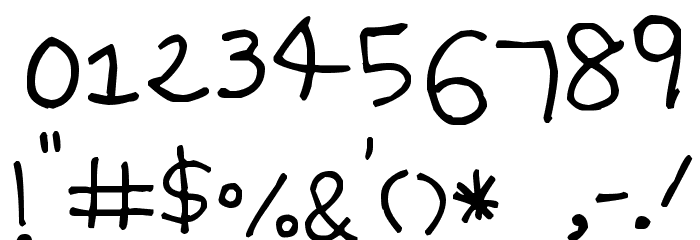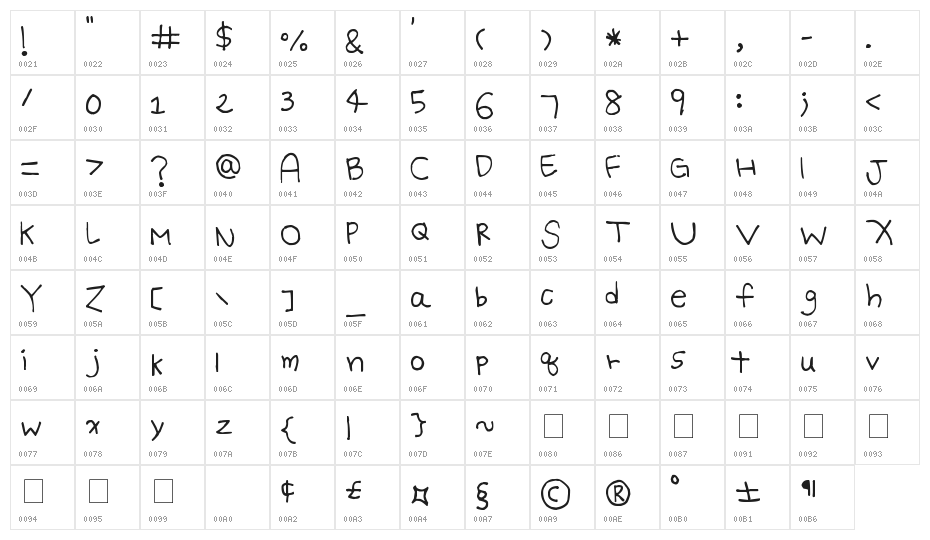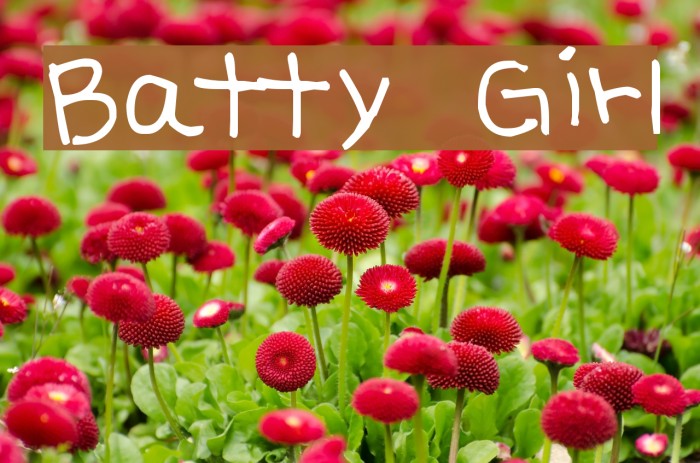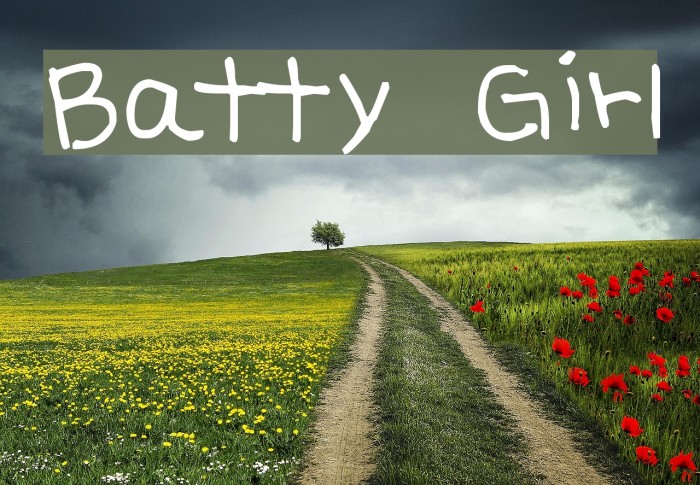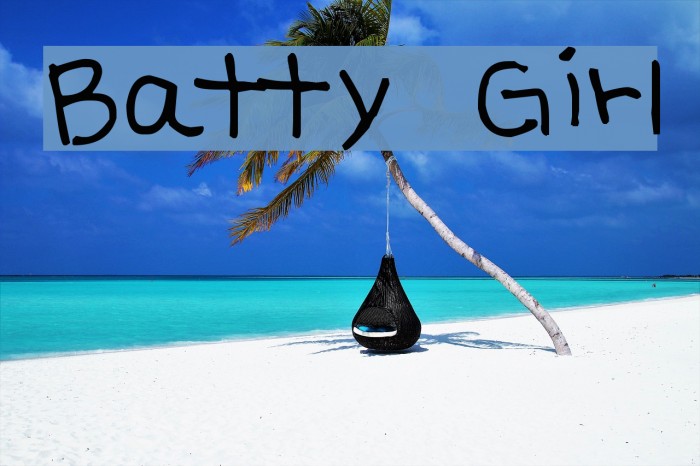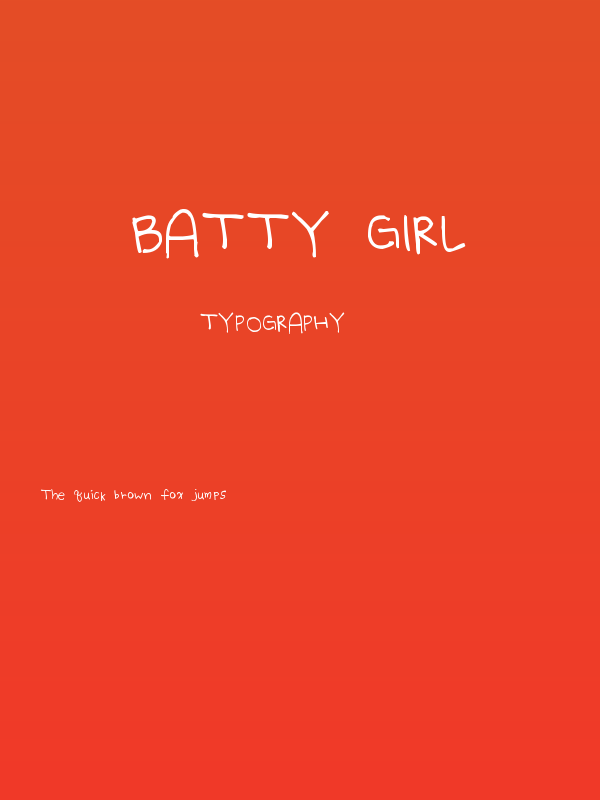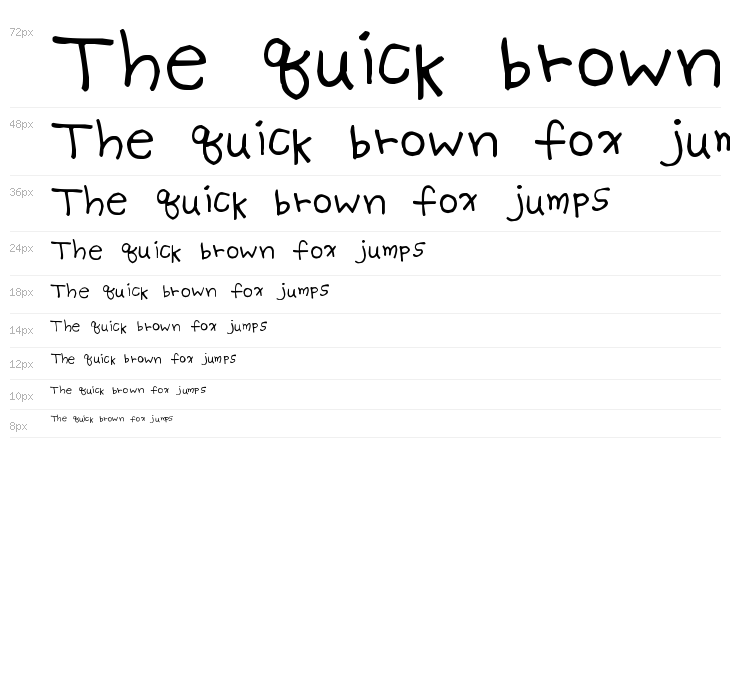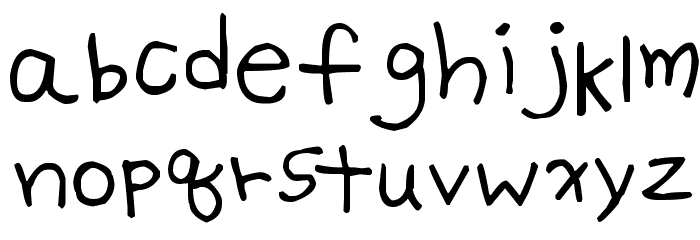
Batty Girl Font
Batty Girl Description
This font exhibits a playful and casual handwritten style, characterized by its uneven strokes and informal appearance. The letters have a whimsical quality, with varying heights and widths that give it a dynamic and lively feel. The uppercase and lowercase letters maintain a consistent style, with rounded edges and a slightly slanted orientation. The numerals and special characters follow the same playful design, making the font suitable for creative and informal projects. Its unique style adds a personal touch, making it ideal for designs that require a friendly and approachable look.
| Proposed Projects | Ideal for children's books, greeting cards, playful branding, and informal invitations. |